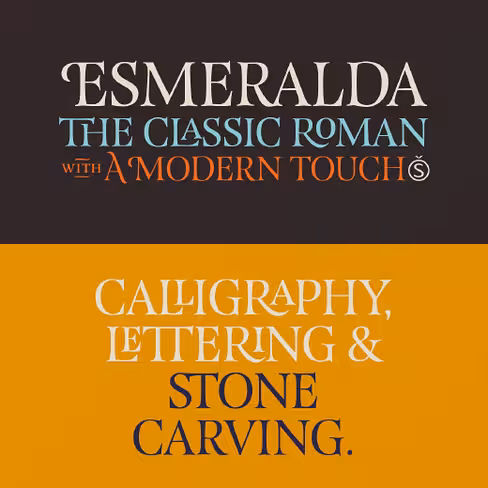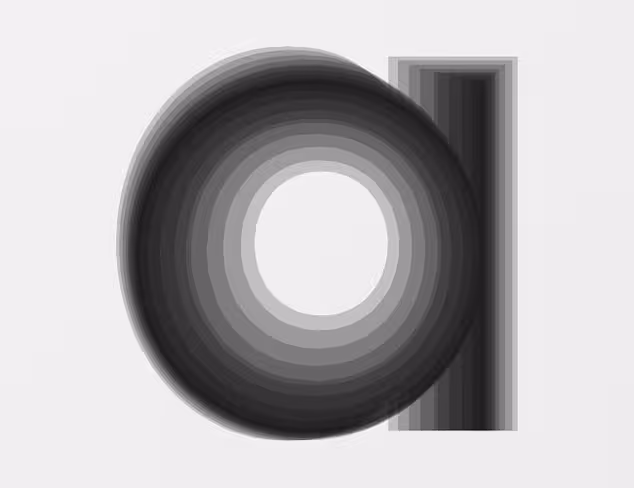
The best typefaces of 2013
For the past few months, we’ve been rounding up the freshest typefaces from each month. Now, we look back at the year and select the most beautiful fonts of 2013.
The Northern Block: Neusa
A condensed geometric sans-serif inspired by early space explorations including the iconic Life magazine coverage of the 1969 Apollo program.
Latinotype: Trend
A font made of layers, taking as a basis a sans and a slab.
HVD Fonts: Brandon Text
The companion of the famous Brandon Grotesque type family. It has a higher x-height than the grotesque version and is optimized for long texts, small sizes and screens.
Grilli Type: GT Pressura
Inspired by type stamped on shipping boxes, GT Pressura uses the visual effect of ink spreading under pressure as a stylistic device.
Hoefler & Frere-Jones: Landmark
The signature alphabet of one of New York’s most significant buildings becomes a family of clear and colourful display fonts.
Letters from Sweden: Kumla
Letters from Sweden’s first release in the “Fabrik Suite” – a project inspired by Swedish industry, factories and harbours.
Letters from Sweden: Trim Poster
Designed with one purpose in mind: compact all-capital headlines without crashing.
Associated Typographics: Skol
On or off the screen, Skol is a tenacious, hardy font that would make its ancestors proud.
Scribble Tone: Analog
This new take on industrial sans-serifs embodies the spirit of the solid state electronics revolution. Its energetic, generously wide proportions are balanced by confident, efficient strokes with minimal contrast.
Lost Type Co-op: Mission Gothic
A relic; a ghost from an era where letters were hand-painted on wood and glass. Made up of five weights and two styles, Mission Gothic is one of the most expansive type families available from Lost Type Co-op.
Rosetta Type Foundry: Huronia
A text face with flavour, suitable for recording oral literature and for extended reading in books and academic texts.
Wordshape: Vaud
Vaud is a neutral, yet formally nuanced grotesk typeface.
Lineto: LL Circular
LL Circular strikes a balance between conceptual rigour, skilled workmanship and measured idiosyncrasy, resulting in a no-nonsense sans-serif text font with unmistakable character yet universal appeal.
Emigre: Program
A type designer’s typeface. It’s about the craft of typeface design and the particular details and effects that type designers fret over when they design type.
DSType: Diversa
A single typeface with nine fonts within, containing 2760 glyphs, divided into nine stylistic sets.
Sudtipos: Esmeralda Pro
Delicate yet solid curves, serifs and endings give each composition a fine, elegant and exquisite feeling, along with a firm and sturdy look.
Typotheque: Lumin
The Lumin family includes slab-serif, sans-serif, condensed and display typefaces, all of which play with the idea of contradiction.
FaceType: Substance
Substance fulfills the primary role of emphasizing content.
Type Together: Bree Serif
A young and energetic upright italic.
OurType: Remo